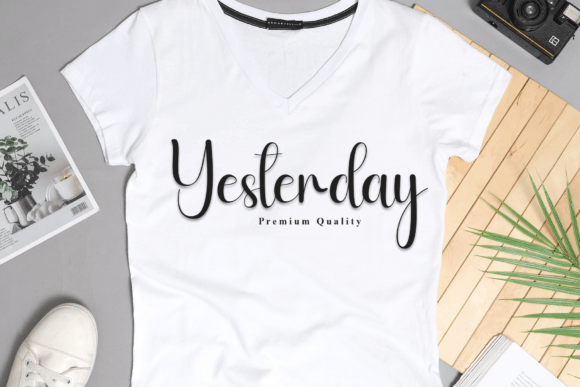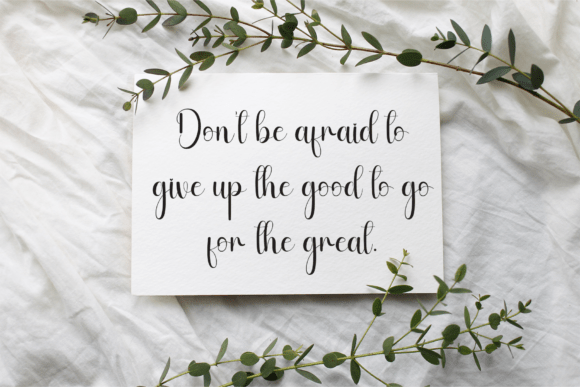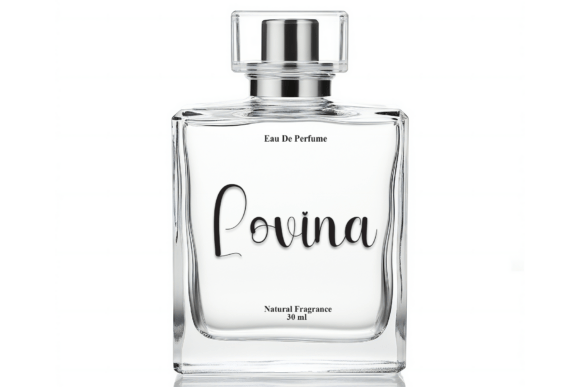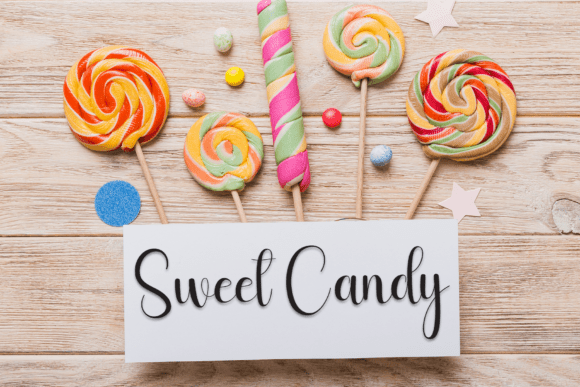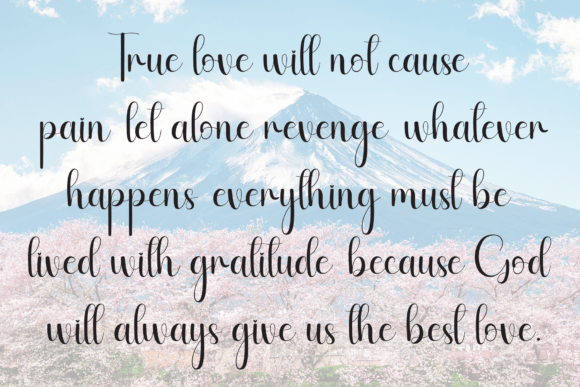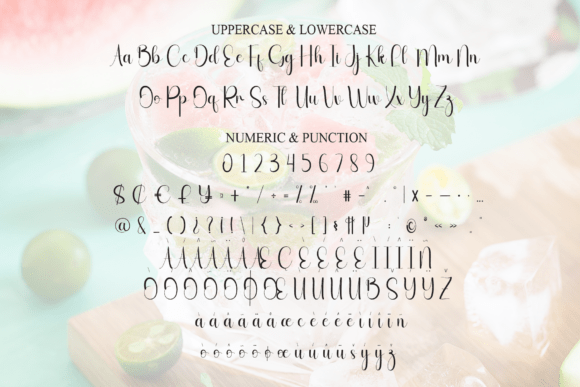
The Perfect Brush Stroke: Unlocking the Power of Fresh Mints Font
Have you ever been inspired by a beautiful handwritten note from a loved one, or a charming invitation that makes you feel like you’re part of something special? For many designers, those moments spark the desire to create something equally as captivating. That’s where the Fresh Mints Font comes in – a stylish handwritten script font that radiates elegance and fluidity.
With its smooth, flowing strokes, this typeface creates a natural and sophisticated feel that’s perfect for branding, invitations, and creative projects. What sets Fresh Mints apart is its ability to strike a balance between charm and modernity, making it a valuable addition to any designer’s toolkit.
Whether you’re looking to add a personal touch to your designs or elevate your brand’s visual identity, the Fresh Mints Font is an excellent choice. Its versatility and unique character make it an ideal solution for designers seeking to create memorable and engaging experiences.
Fresh Mints Font Key Features
- Unique Characteristics: Fresh Mints Font features a unique blend of modern and vintage elements, with intricate details and subtle texture, making it perfect for creative and elegant designs.
- Characters and Glyphs: The font includes a wide range of characters, including Latin, Cyrillic, and Greek alphabets, as well as punctuation marks, symbols, and diacritics.
Designer Review: Fresh Mints Font
Overall, I found the Fresh Mints Font to be a charming and refreshing addition to any design project. Here are some of its standout features:
- ✨ Friendly and approachable feel: The Fresh Mints Font has a unique blend of classic and modern elements that make it perfect for projects that require a friendly and approachable tone.
- ✨ Versatile typography: This font is highly versatile and can be used in a variety of contexts, from headings to body text.
- ✨ Clean and crisp lines: The font’s clean and crisp lines make it easy to read and scan, even at smaller font sizes.
- ⚠️ Limited ligature support: I noticed that the font doesn’t support ligatures for certain letter combinations, which can lead to awkward spacing and a less polished look.
- ⚠️ Limited language support: The font only supports a limited number of languages, which may be a concern for projects that require multilingual support.
Overall, I think the Fresh Mints Font is a solid choice for designers who want to add a touch of whimsy and friendliness to their projects. While it may have some limitations, its unique feel and versatility make it a great addition to any design toolbox.
To get the most out of Fresh Mints Font, use it for:
- Creative branding and logos
- Invitations and event materials
- Food and beverage labels
- Health and wellness branding
Remember to pair the font with a clean and modern design to create a visually appealing and cohesive look.
Alternatives to Fresh Mints Font for Designers
Fresh Mints Font is a clean and modern sans-serif font, but sometimes designers need alternatives to add some variety to their designs. Here are a few options:
Lato Font is a popular sans-serif font that is highly legible and versatile. It is suitable for both body text and headings. Lato Font has a slightly more geometric feel than Fresh Mints Font, making it a great choice for modern and tech-related designs.
Comparison: Lato Font is more geometric and has a wider range of weights than Fresh Mints Font.
Open Sans Font is a modern sans-serif font that is highly legible and clean. It is suitable for body text and is often used in digital interfaces. Open Sans Font has a similar feel to Fresh Mints Font, but is slightly more condensed and has a wider range of weights.